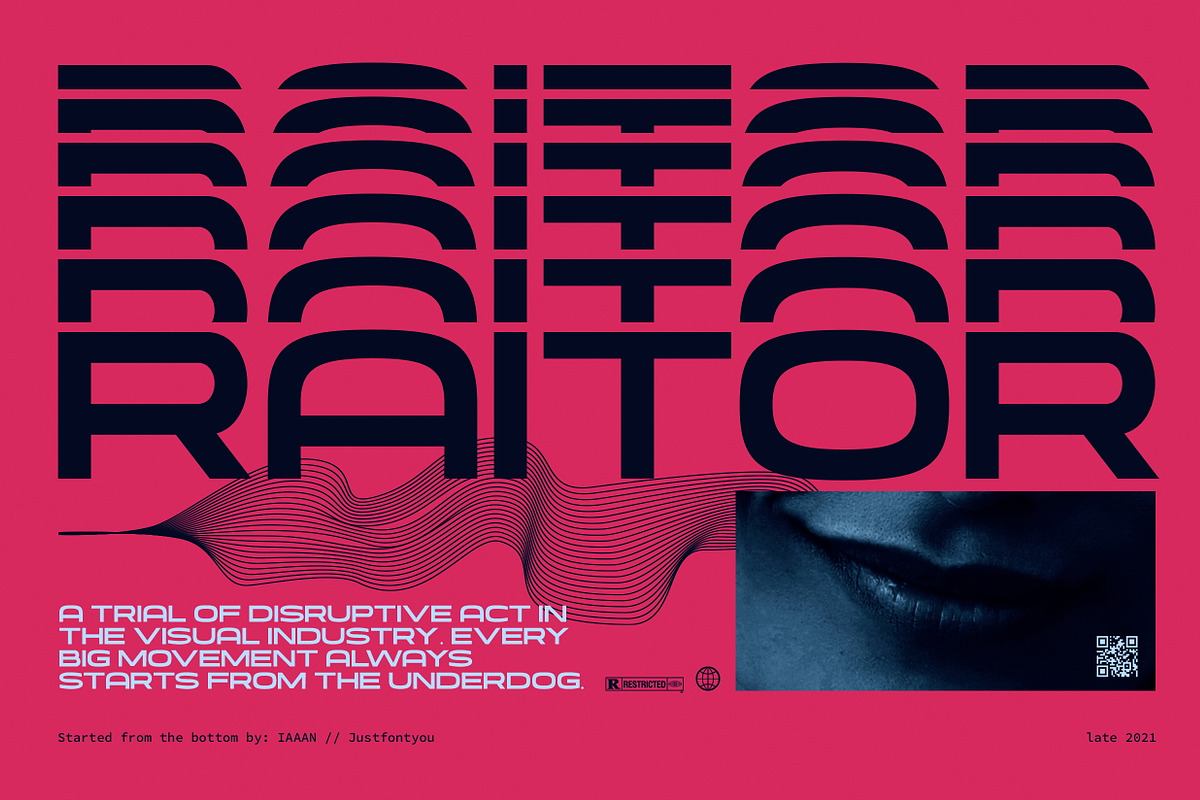
Raitor - Futuristic Display Fonts Free Download
Raitor – Futuristic Display Fonts Free Download is a sleek and cutting-edge typeface designed to capture the essence of modern, tech-inspired design. With its sharp edges, geometric shapes, and futuristic vibe, Raitor is perfect for high-tech branding, sci-fi posters, video game graphics, and digital marketing content.
This font exudes a sense of innovation and forward-thinking, making it ideal for projects that require a bold and contemporary look. Whether you’re creating a high-tech logo, a futuristic movie title, or a sleek website interface, Raitor adds an advanced, digital feel to your typography.